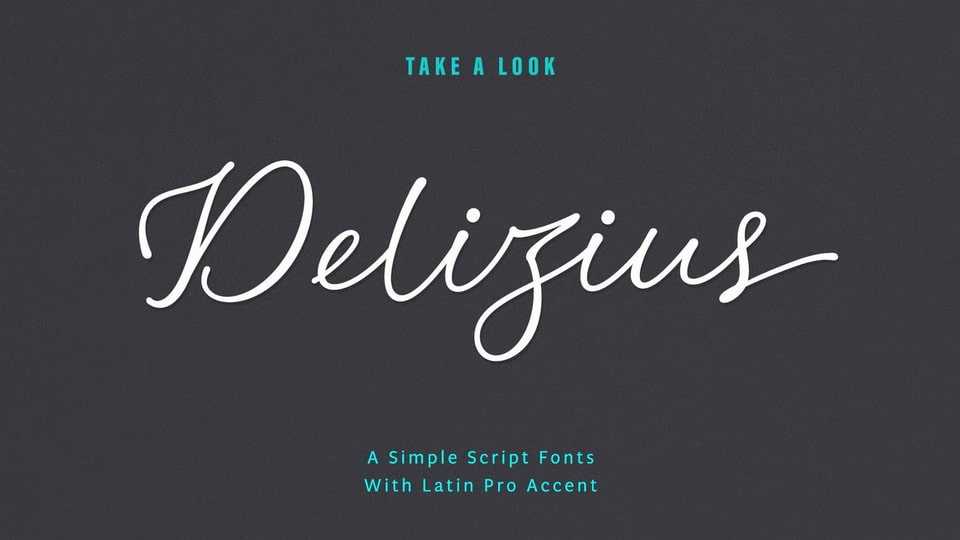
Download Delizuis Script font, a handwritten typeface, combining retro, vintage, and modern calligraphy styles, our font exudes exotic nuances in its characters.
Designer: Saffatin Co